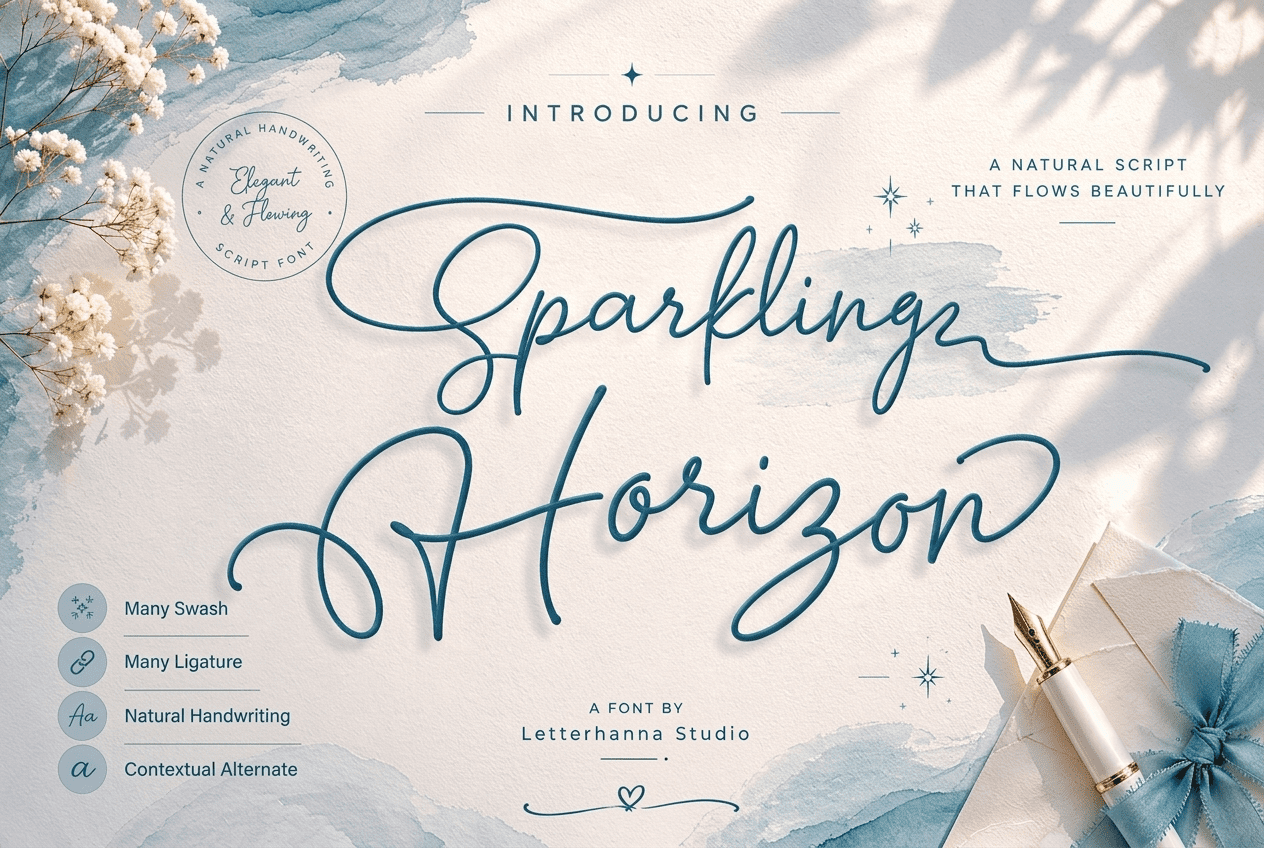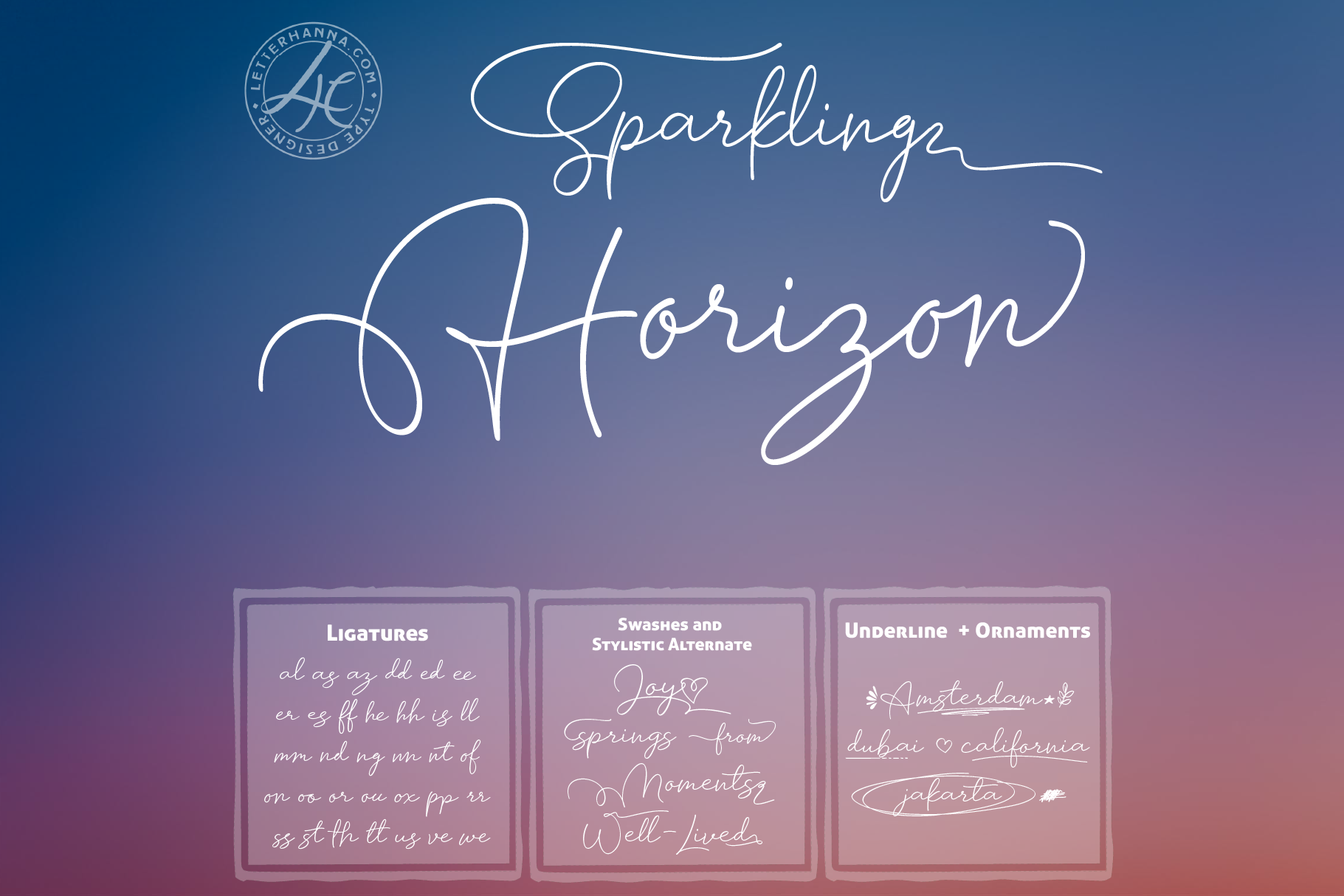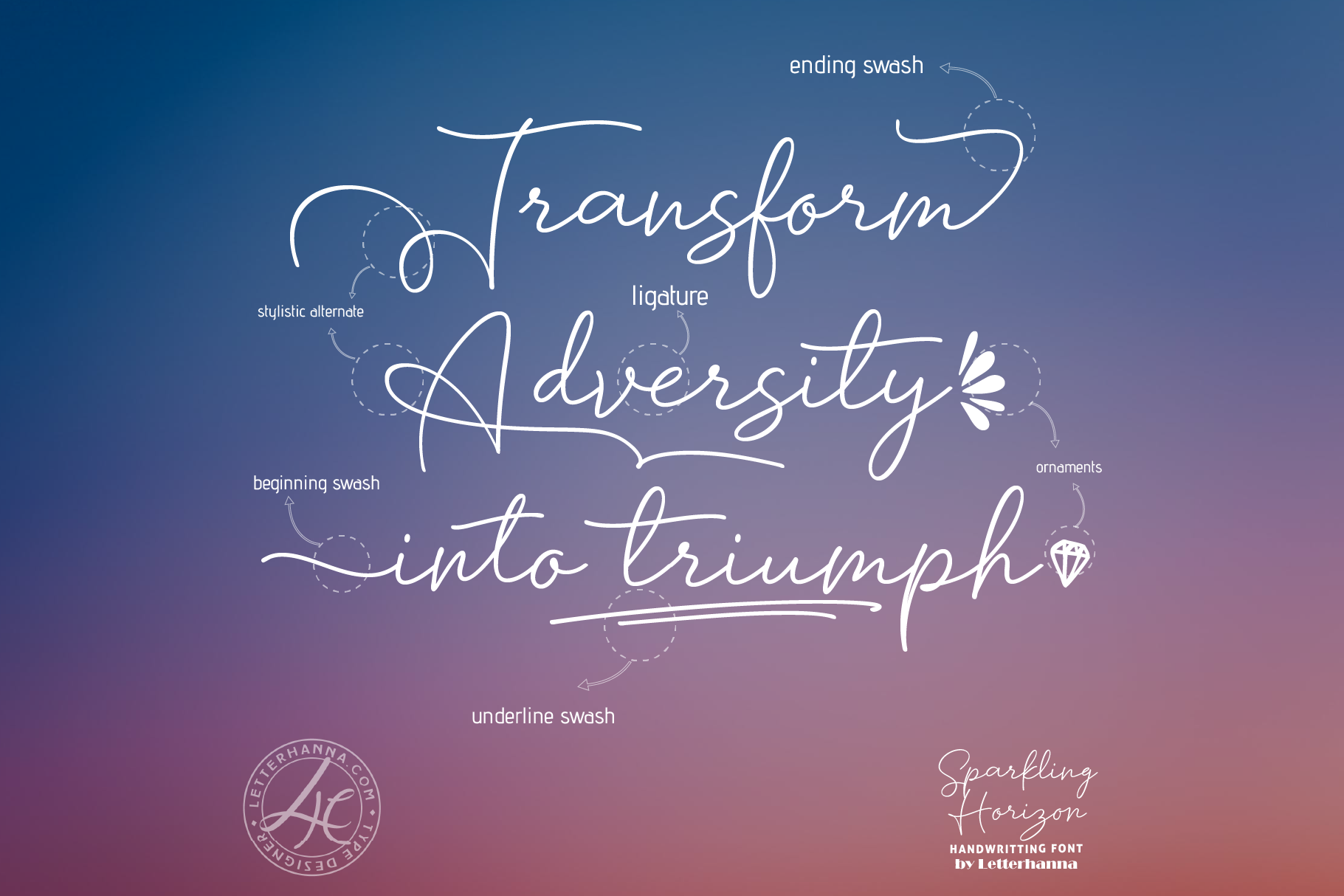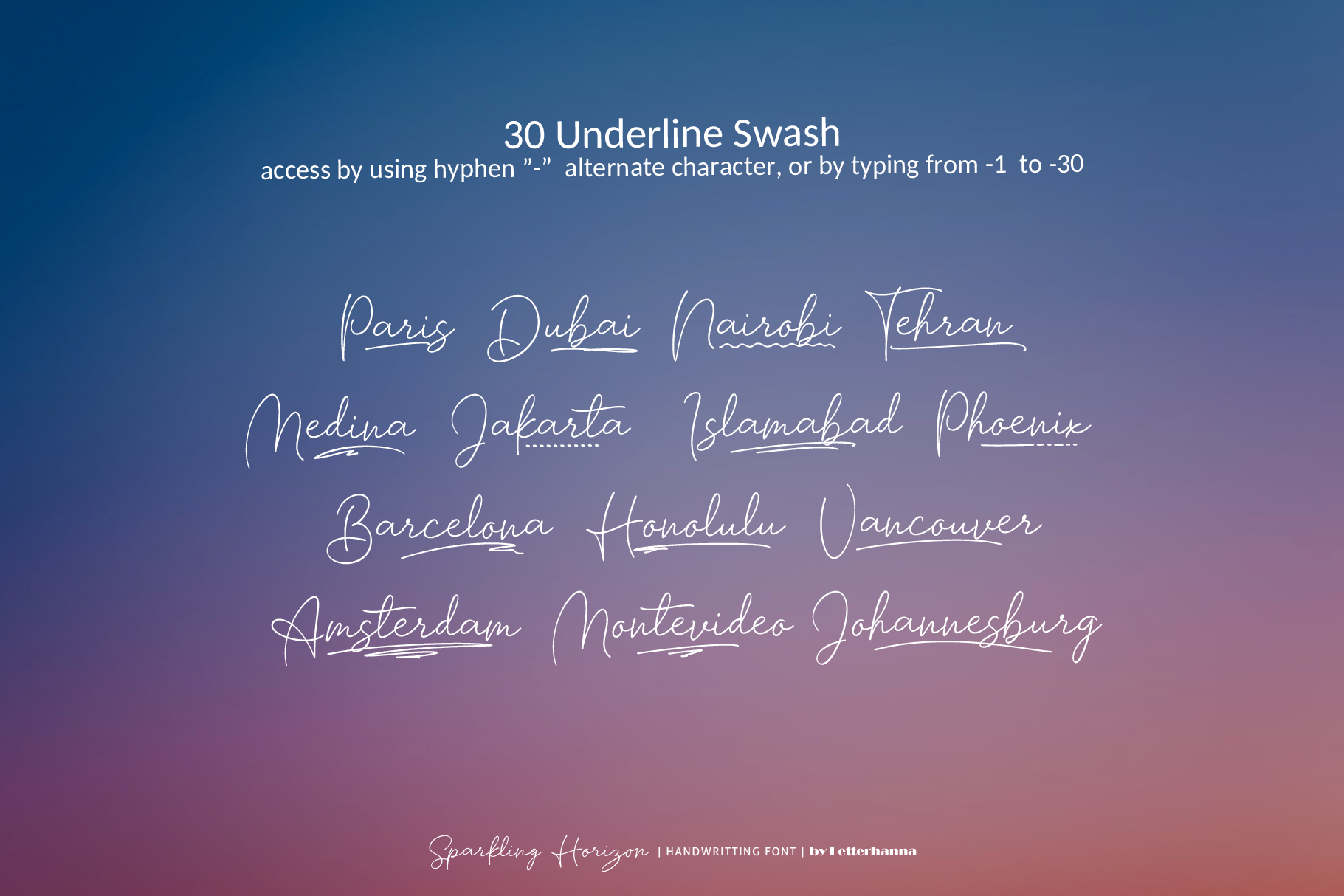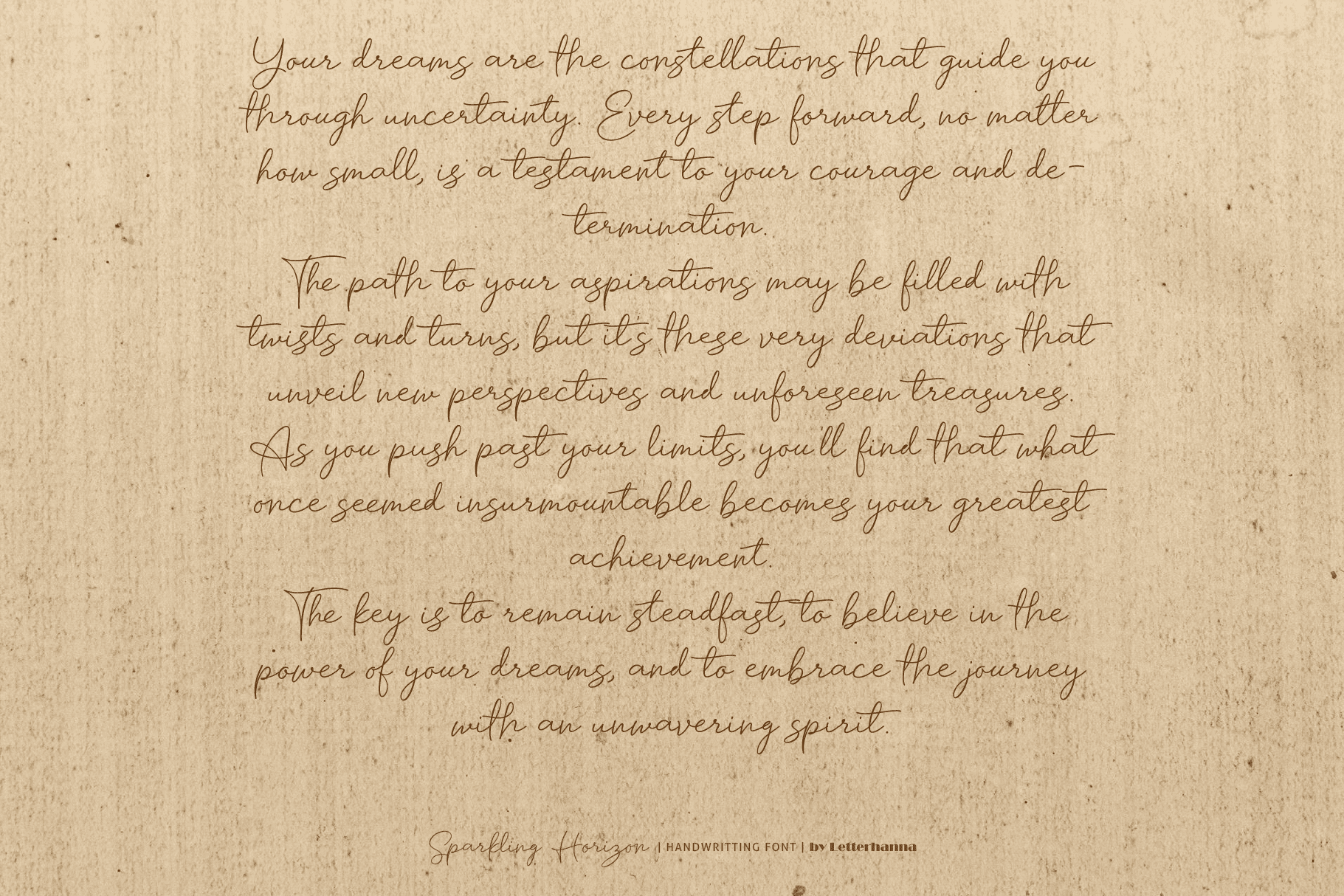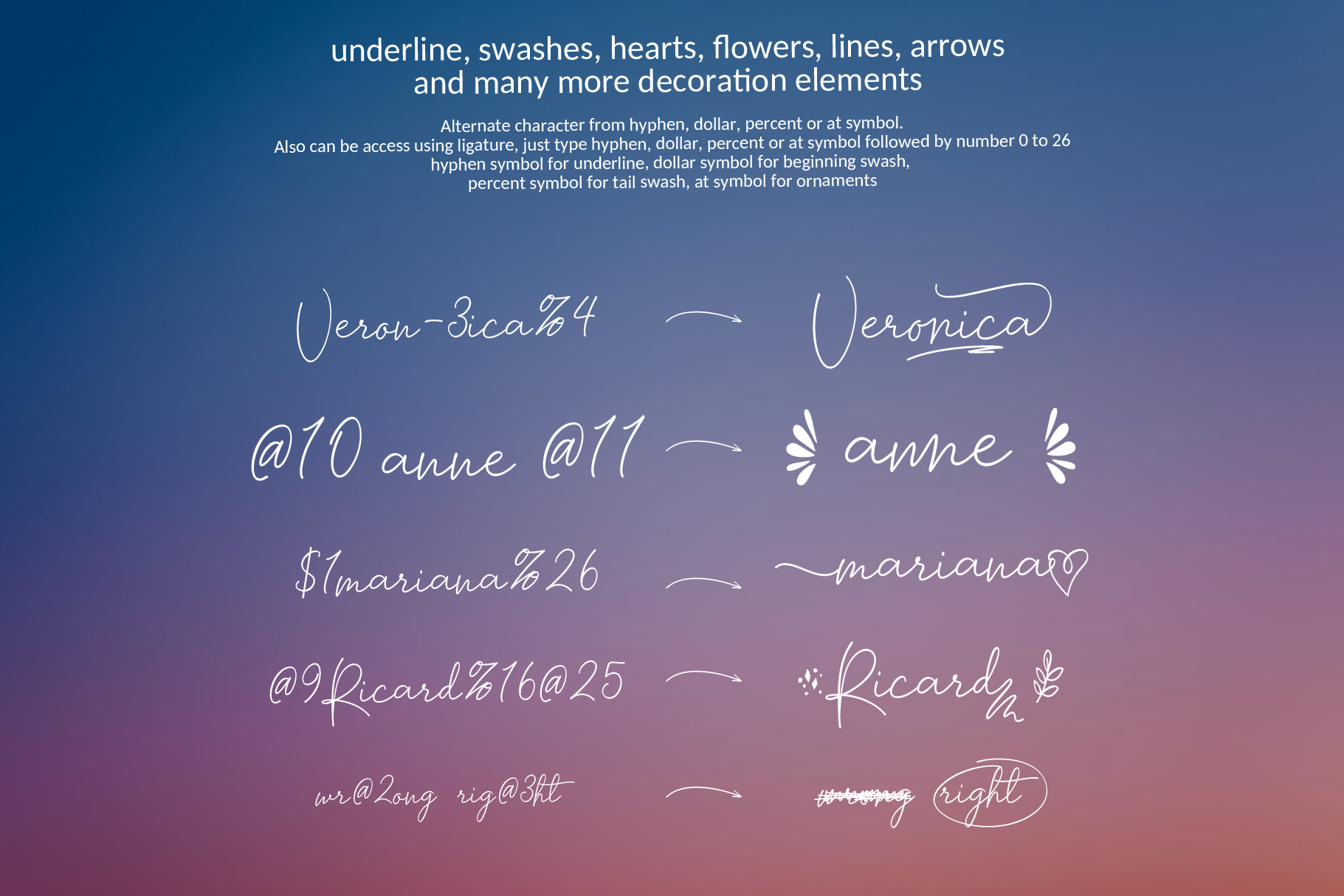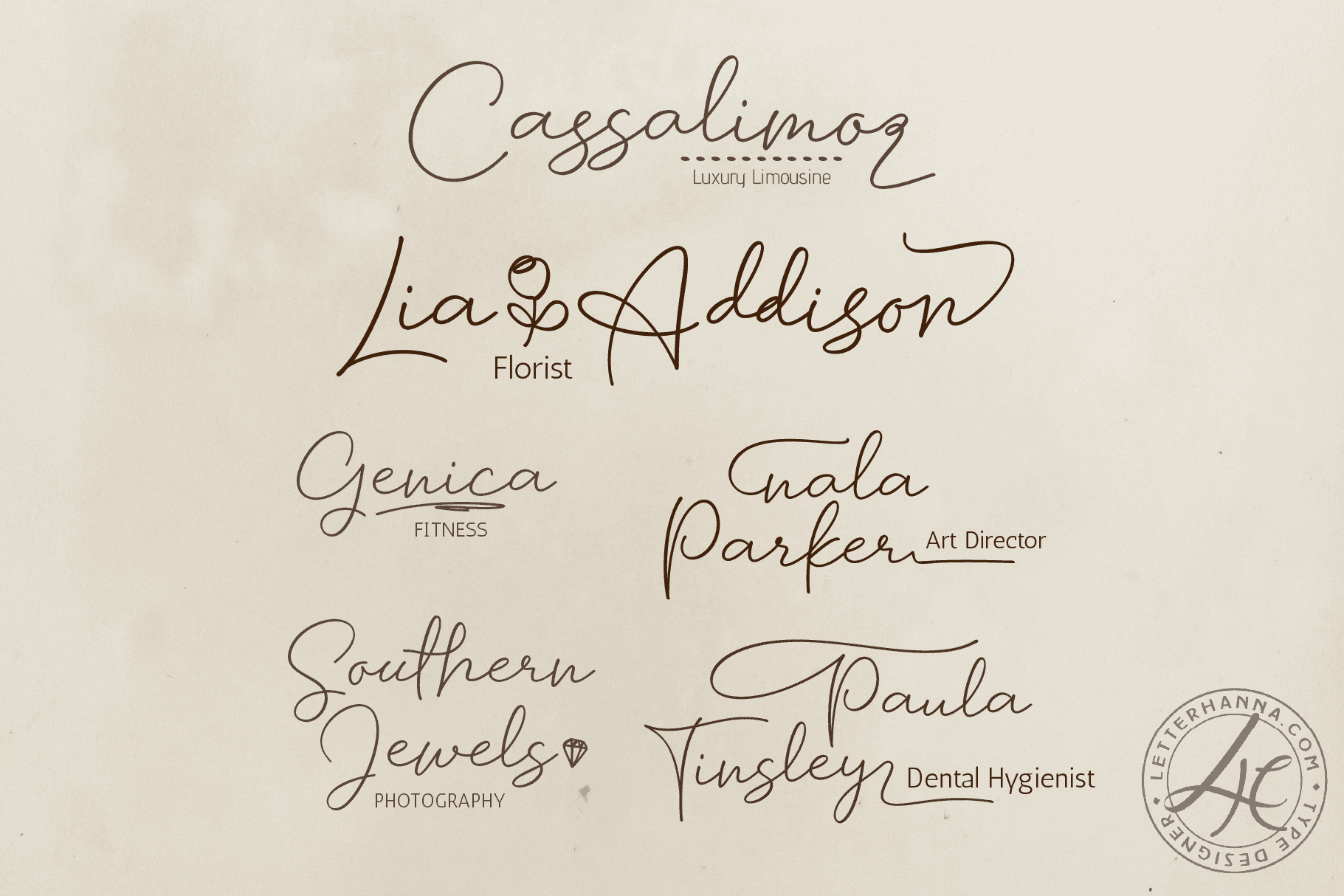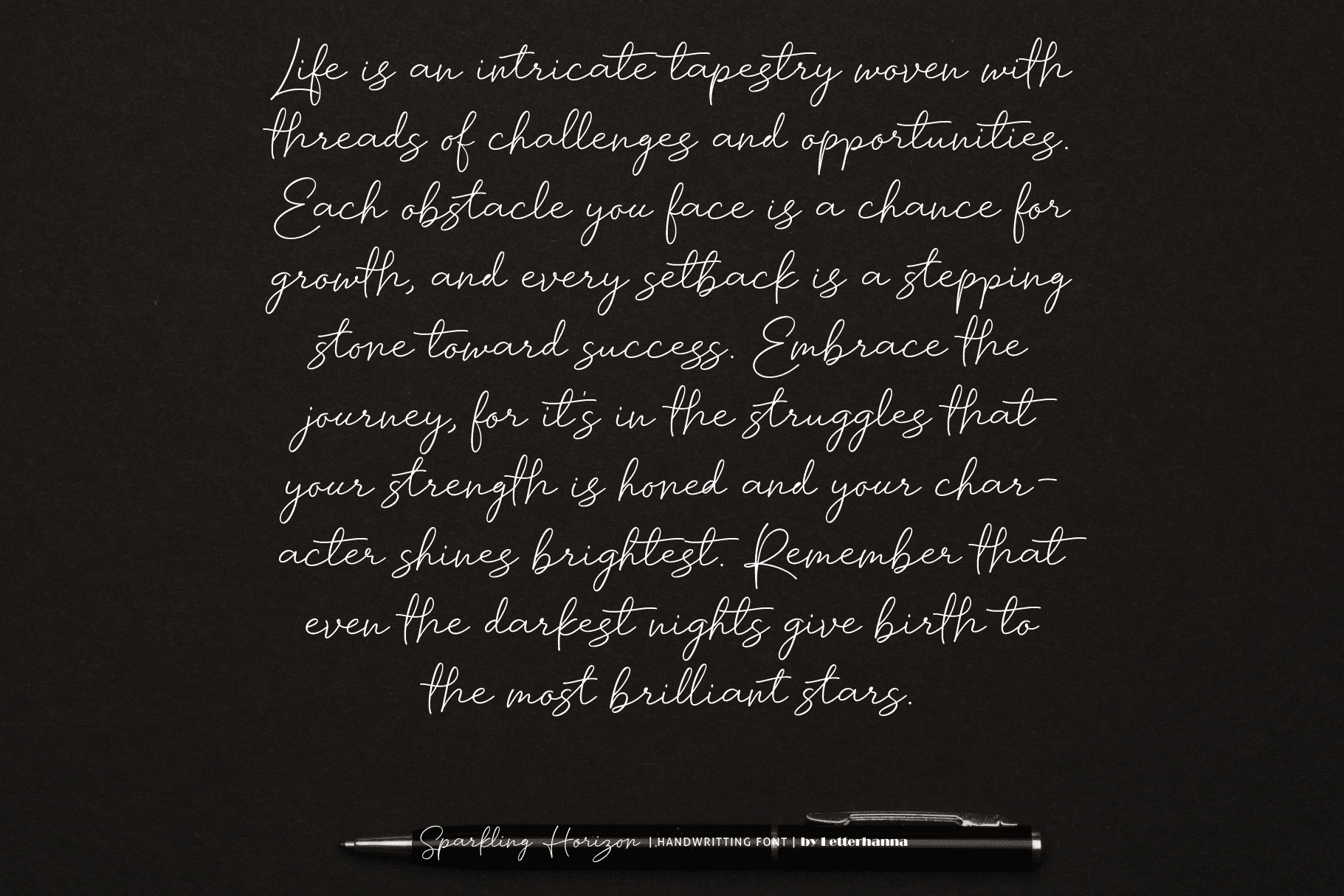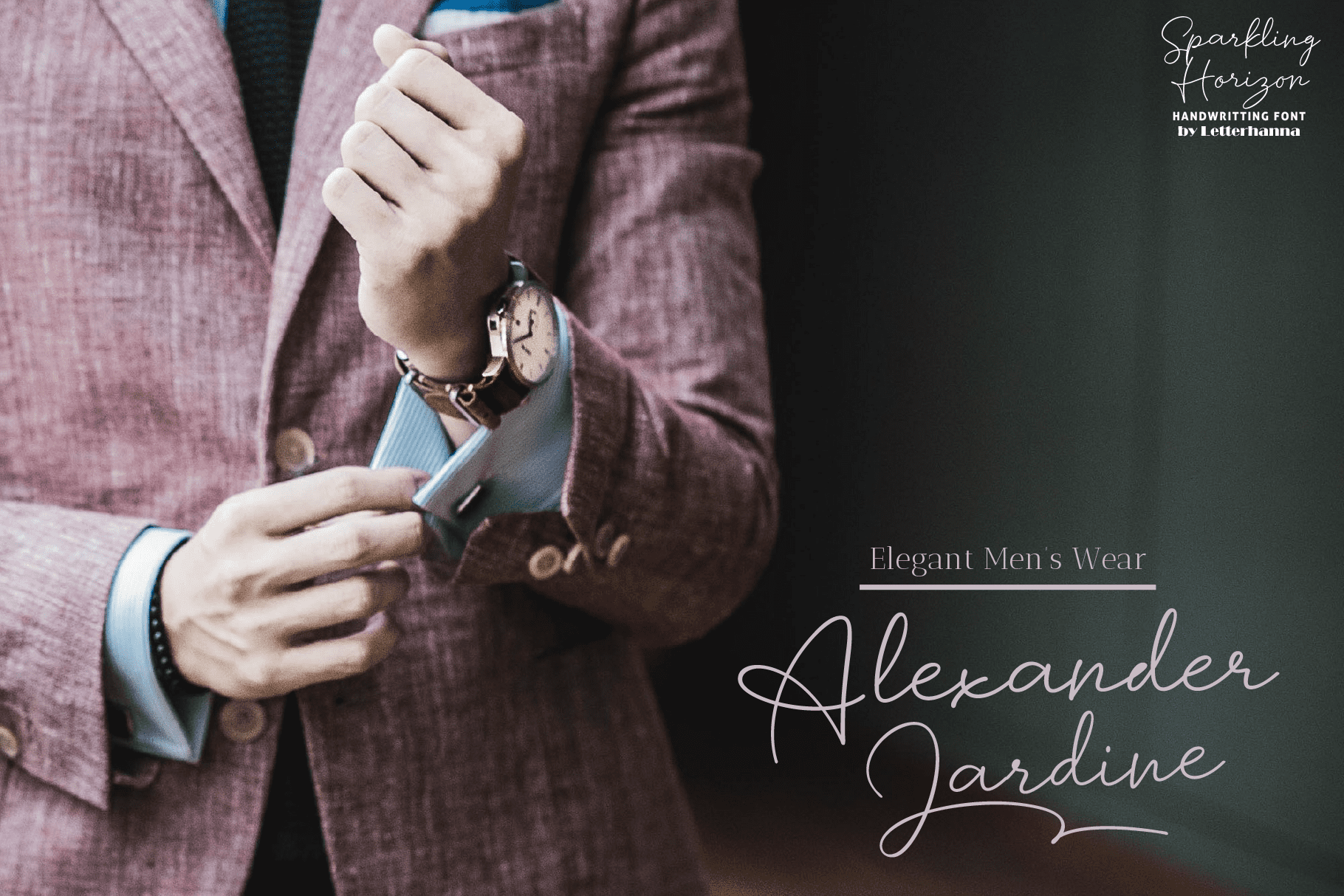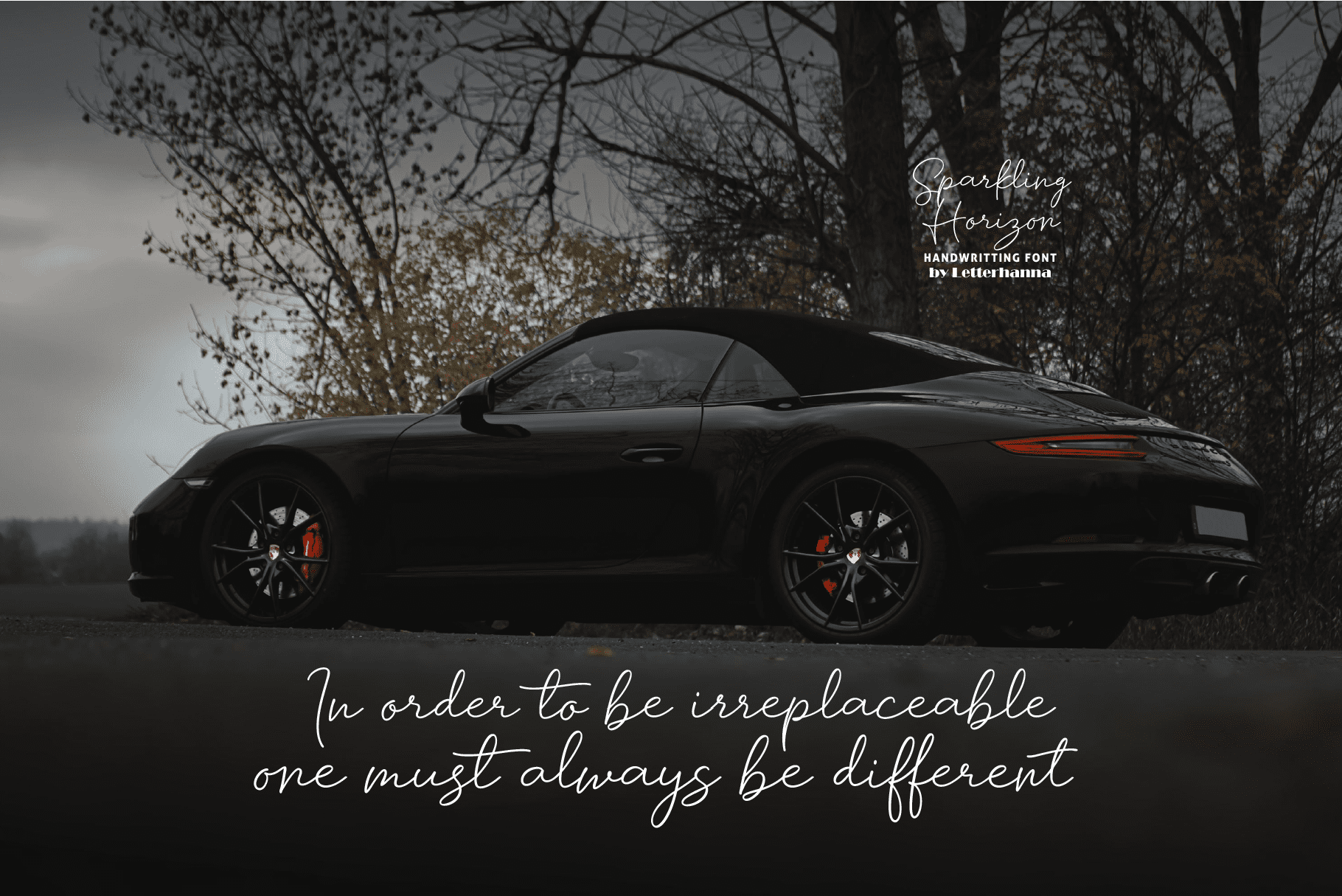
Introducing “Sparkling Horizon” – a mesmerizing handwritten font that captures the essence of boundless creativity and shimmering elegance. With every stroke, this font evokes the sensation of glistening sunlight on the horizon, infusing your designs with a touch of radiant charm. Whether used for invitations, logos, or creative projects, “Sparkling Horizon” brings a sense of enchantment to your words. Let your imagination take flight as you create with this font, where each character sparkles like a unique star on the canvas of your design journey.
Sparkling Horizon Font perfect for any occasion. You can use it for invitations, posters, logos, or any other design project that requires a personal touch. With its natural and authentic feel, our Handwriting Font will give your projects a warm and welcoming touch.
Sparkling Horizon Font was created to look as close to a natural handwritten script as possible by including over 33 natural-looking opentype ligatures. There are also 30 underline swashes included and lot more ornaments, arrow, scribbles, etc.
Easy access all alternate glyphs, swashes, ornaments and underlines just by using ligatures, you can try yourself in the font preview tool. Read more instruction to use alternate glyphs at preview images or read at letterhanna.com/font-guide
FEATURES
– Uppercase and Lowercase letters
– Multilingual Support
– 33 Ligatures
– Beginning and ending swashes
– Underline swashes
– Stylistic alternate
– Contextual alternate
– Ornaments
– Easy access swash just by using ligatures